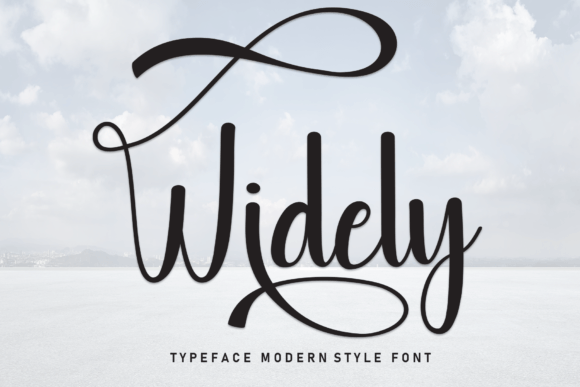
In a world where expressions of love are often constrained by mundane words, let Widely, a captivating script font, be your eloquent emissary of heartfelt emotions. Inspired by the allure of romantic poetry, Widely transforms your digital canvas into a parchment of passion, beckoning readers with its graceful strokes and amorous curves.
Journey through the depths of your affection with Widely, a font that captures the raw essence of love's embrace. Its delicate serifs dance like smitten hearts, intertwining to create a visual symphony of endearment. Each letter exudes an air of timeless elegance, echoing the enduring nature of true love.
Unleash your creativity and let Widely ignite the flames of passion in your digital designs. Craft wedding invitations that shimmer with heartfelt promises, design cards that radiate warmth and affection, and breathe life into any project craving a touch of romantic charm. Widely's versatility extends beyond mere aesthetics; its readability ensures that your message of love is conveyed with clarity and grace.
With Widely, you possess the power to evoke emotions, to resonate with the hearts of your readers, and to leave an indelible mark upon their souls. Embrace the allure of romantic poetry and allow Widely to transform your digital creations into expressions of unyielding love. Let your words dance with passion, your designs radiate romance, and your message of affection captivate the world.